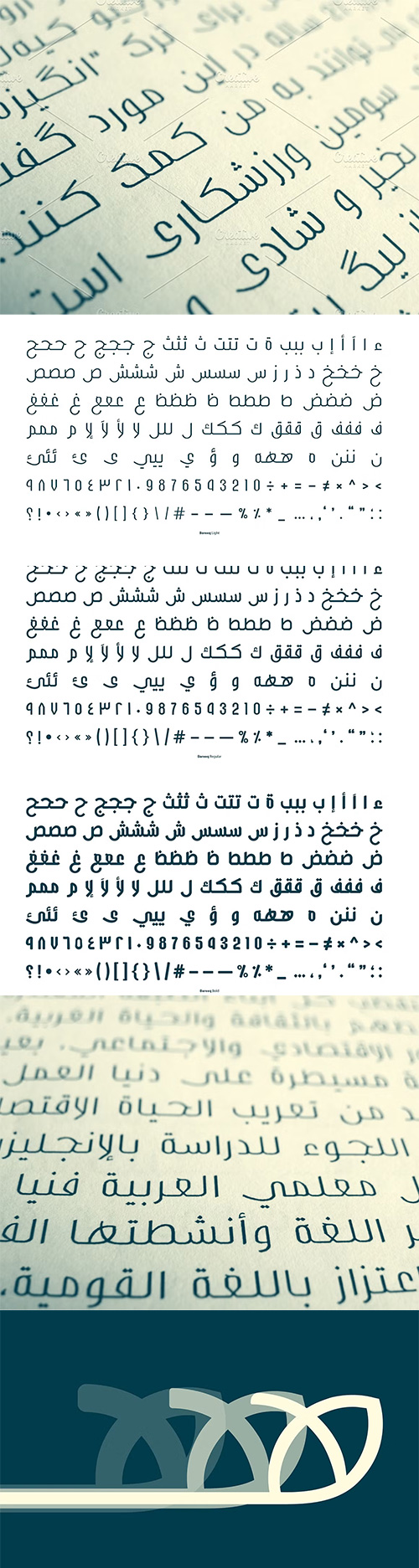
CM - Bareeq - Arabic Typeface 3xOTF 100582
- Translated from Arabic, The word ‘Bareeq means Glitter. Bareeq is an Arabic typeface with modish characteristic that suits various range of design applications including web and print. The typeface consists of three different weights, namely: Light, Regular, and Bold.